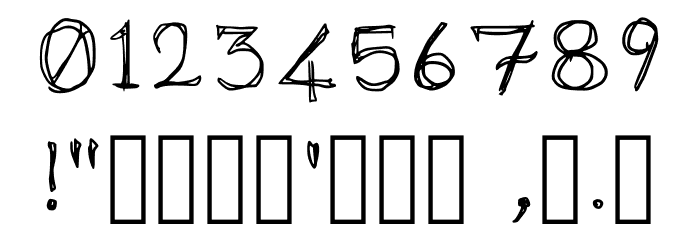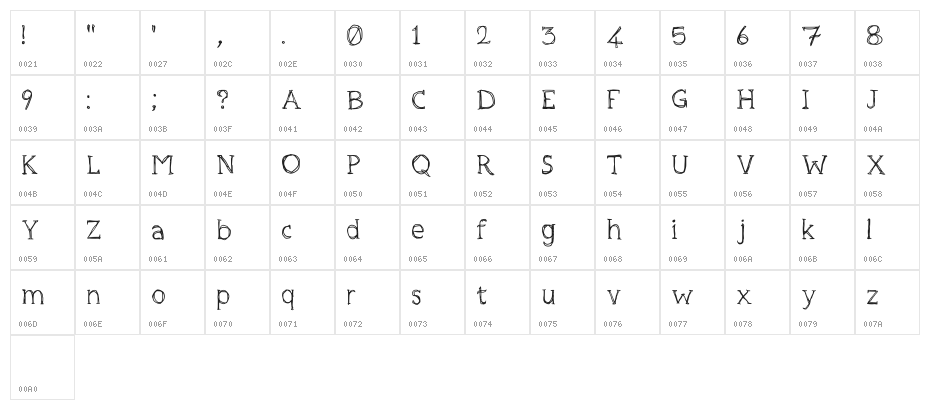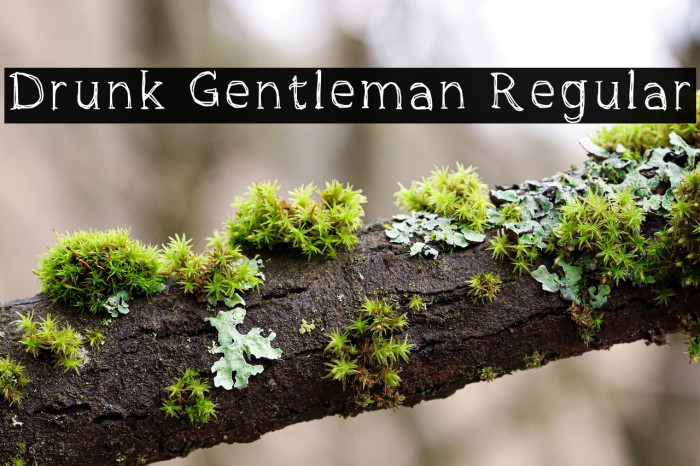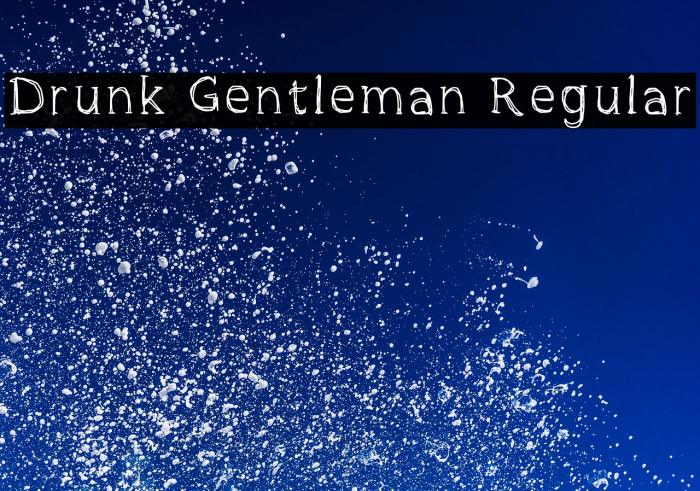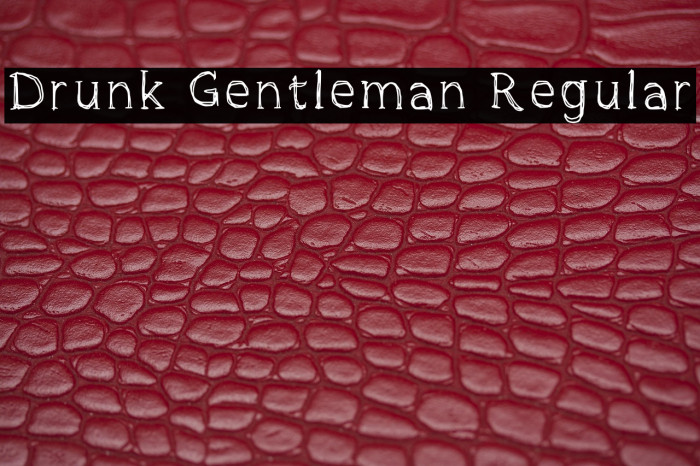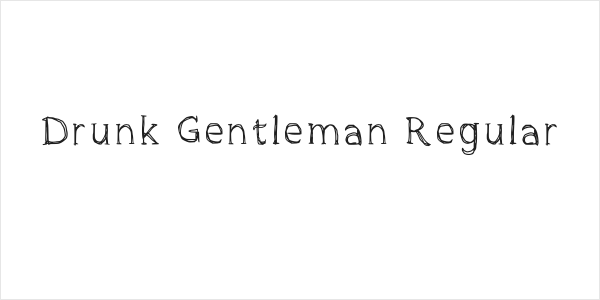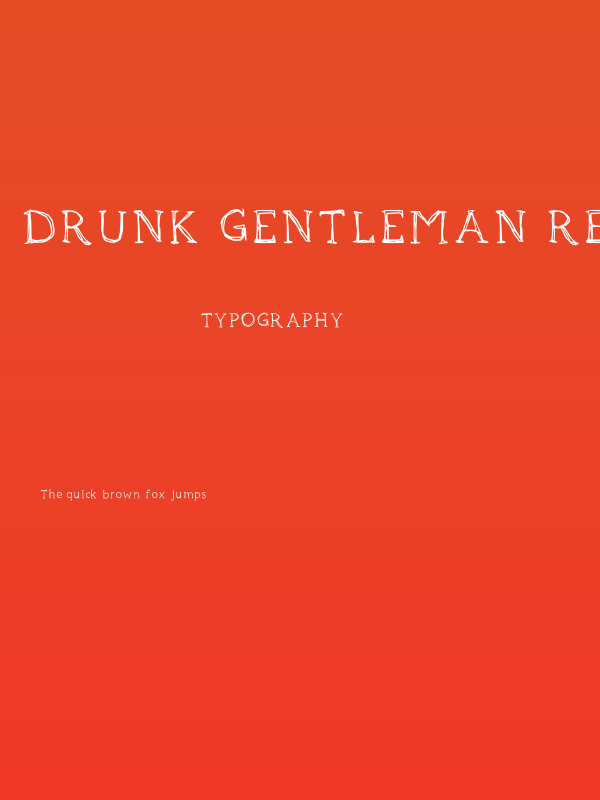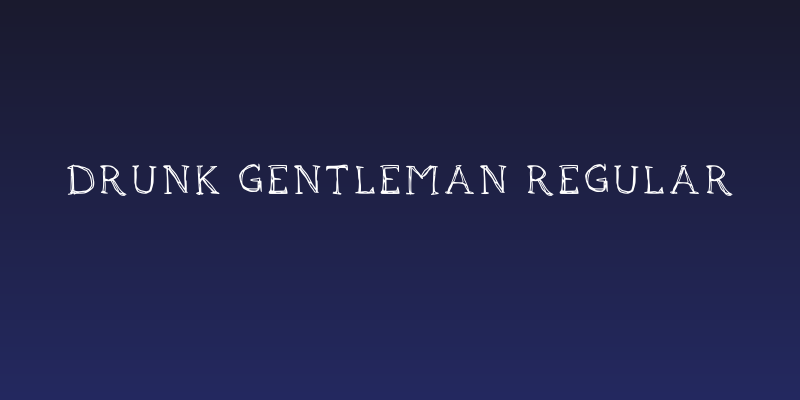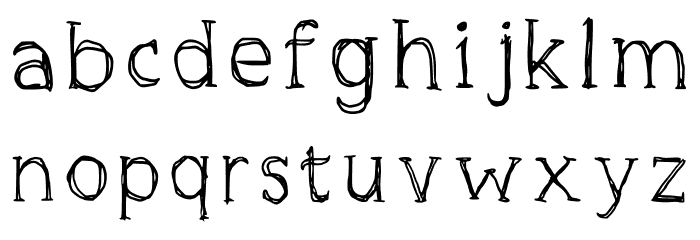
Drunk Gentleman Regular Font
Drunk Gentleman Regular Description
This font features a whimsical and playful design, characterized by its uneven and slightly distorted letterforms. The strokes are irregular, giving it a hand-drawn appearance that adds a sense of charm and uniqueness. The uppercase and lowercase letters maintain a consistent style, with quirky angles and varying stroke thicknesses that create a dynamic visual rhythm. The numerals and special characters follow the same playful aesthetic, making the font suitable for creative and informal applications. Its distinct style makes it stand out, perfect for projects that require a touch of personality and creativity.
| Proposed Projects | Ideal for children's books, playful branding, creative posters, and artistic invitations. |